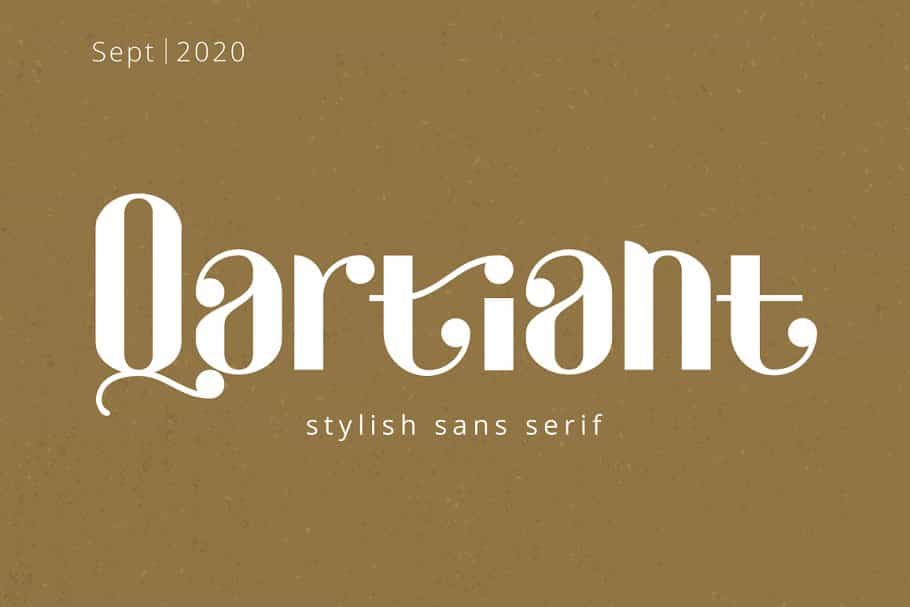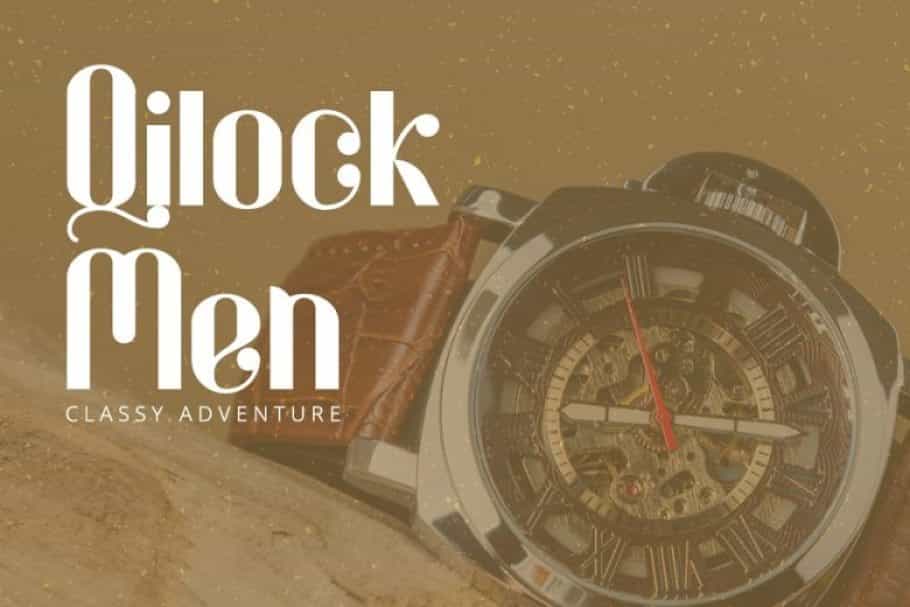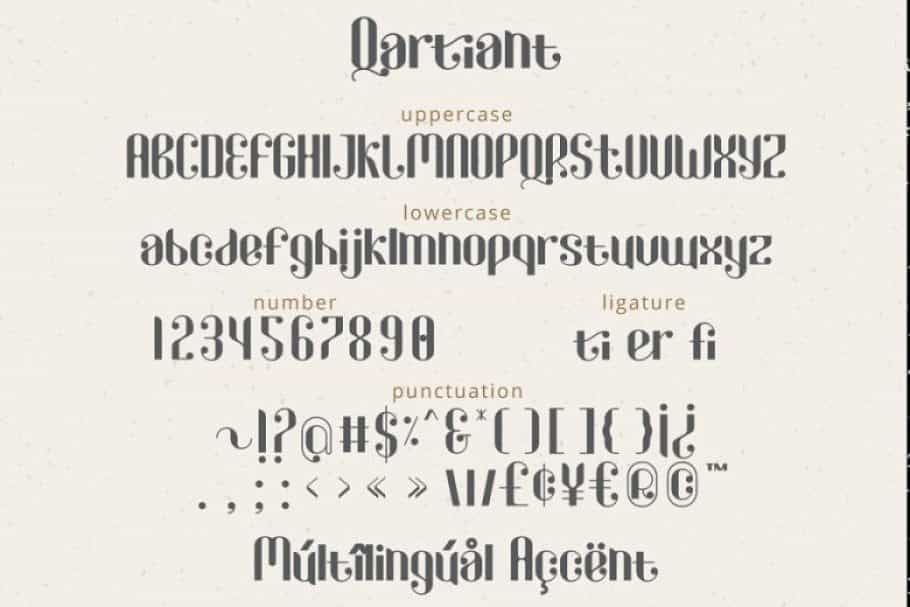
Qartiant is a clean modern sans serif font that has a clean and classy look which is perfect for conveying strong messages. This font can be applied to magazines and posters, branding of websites, greeting or wedding cards, packaging of fashion, makeup, stationery products, stationery books, etc.